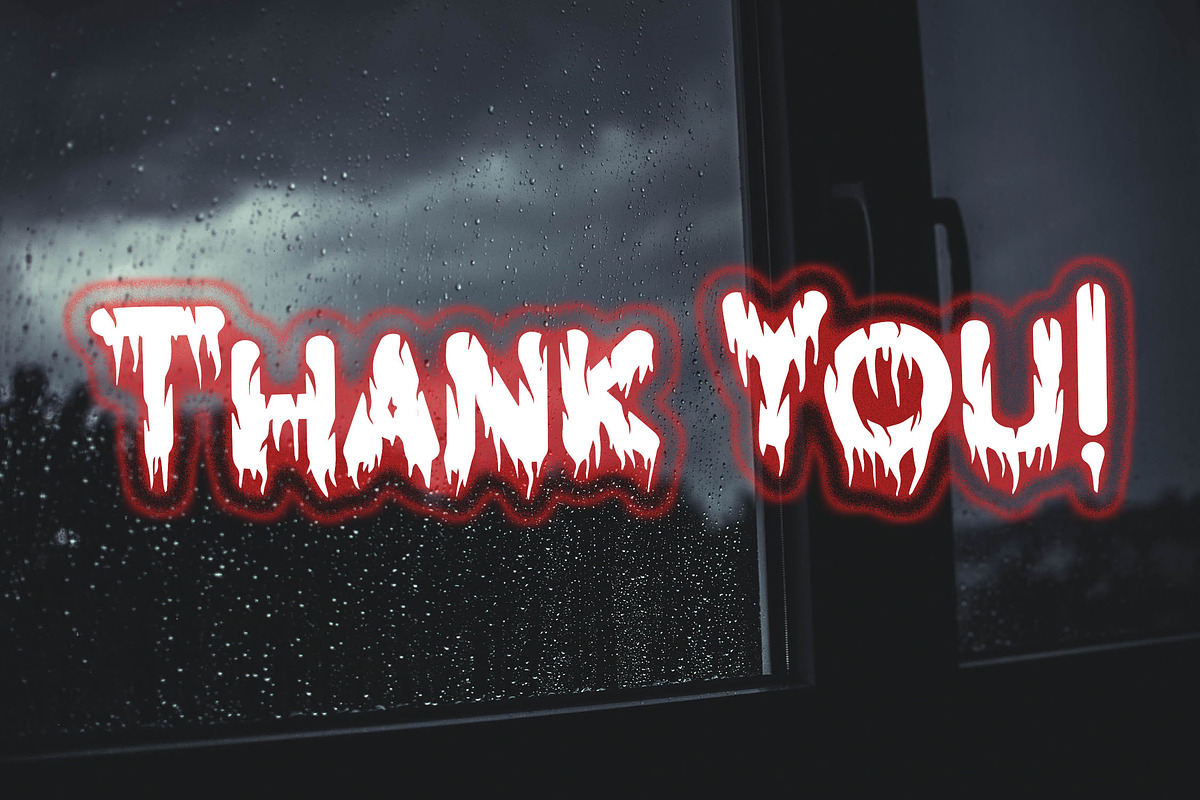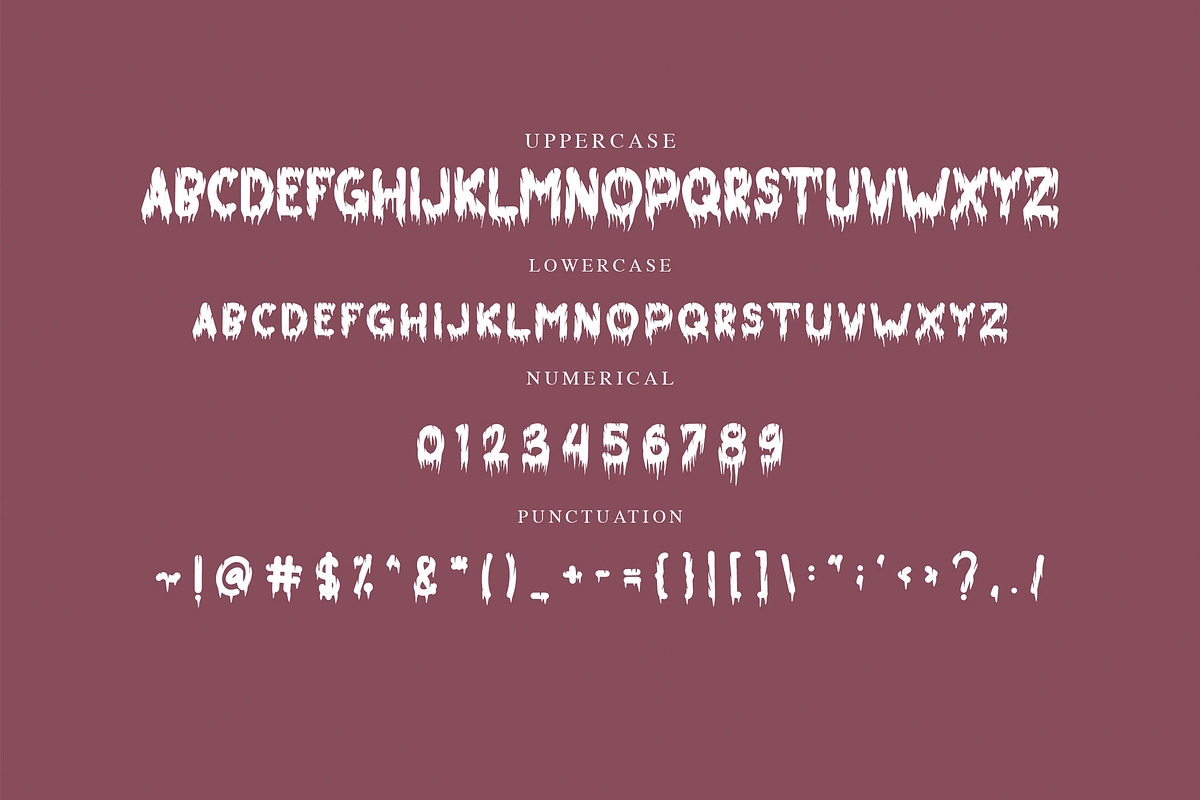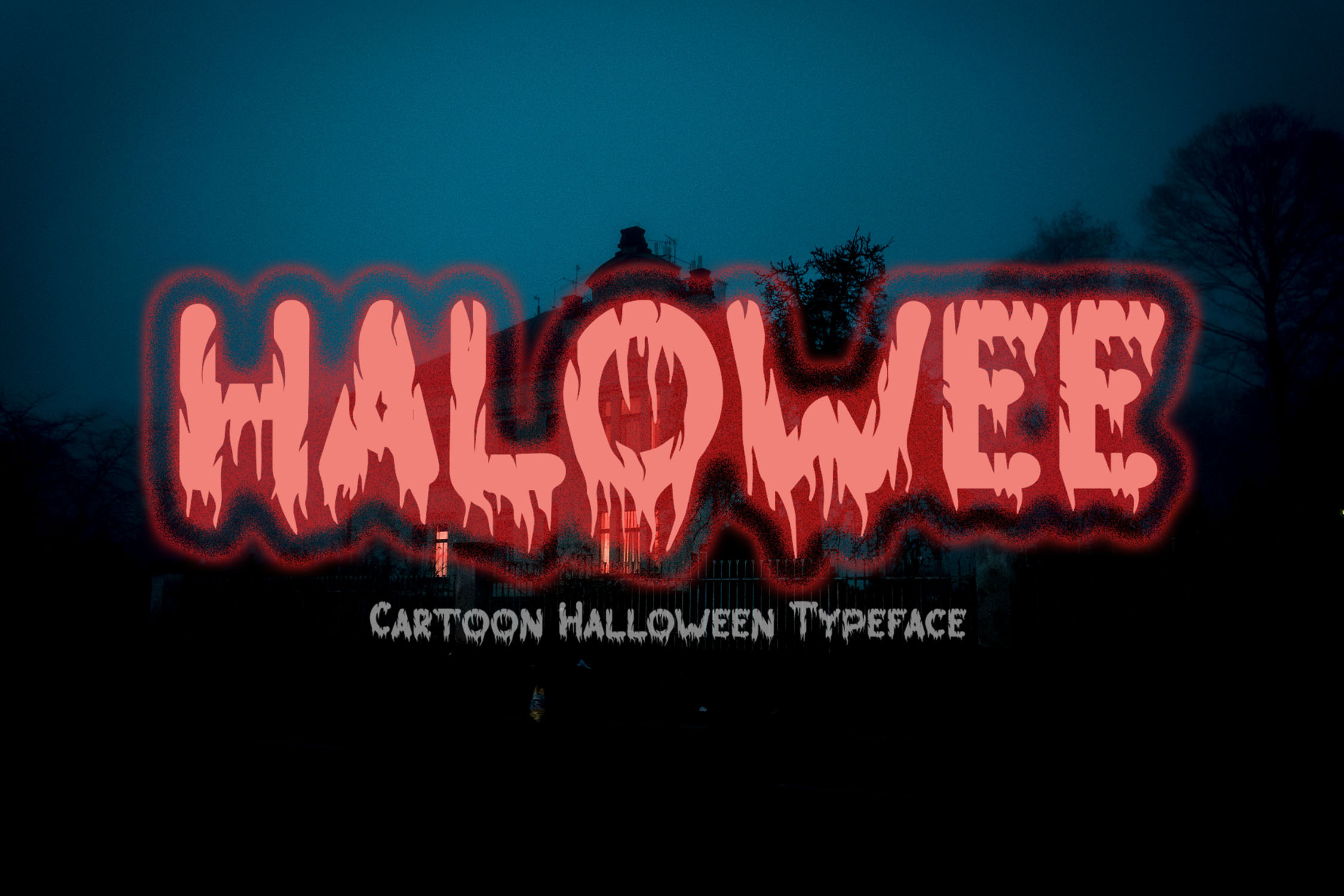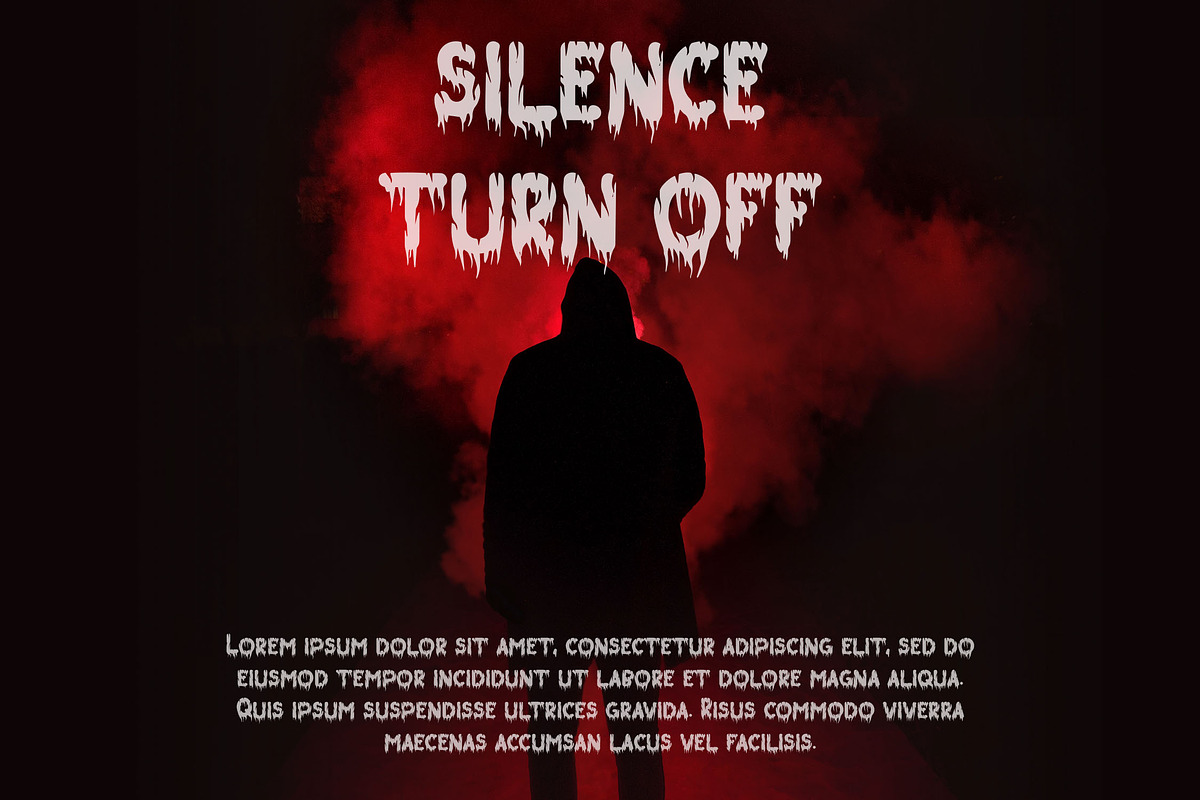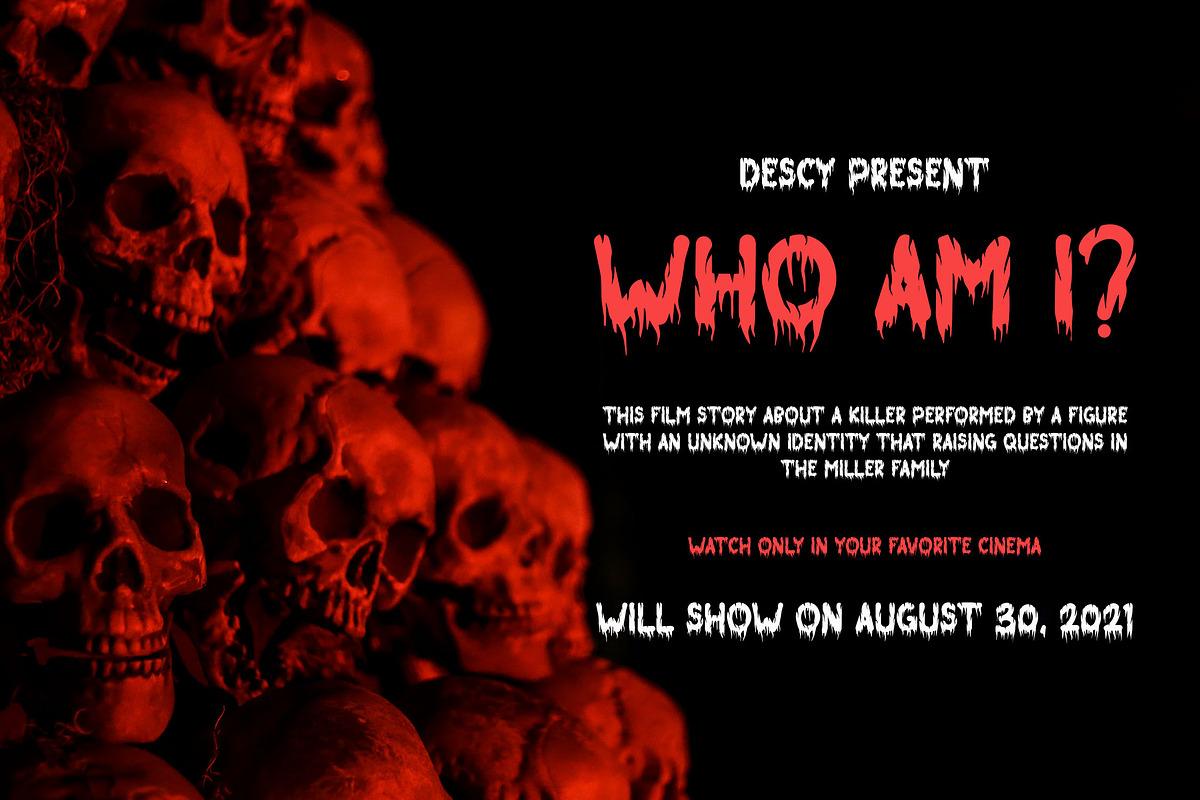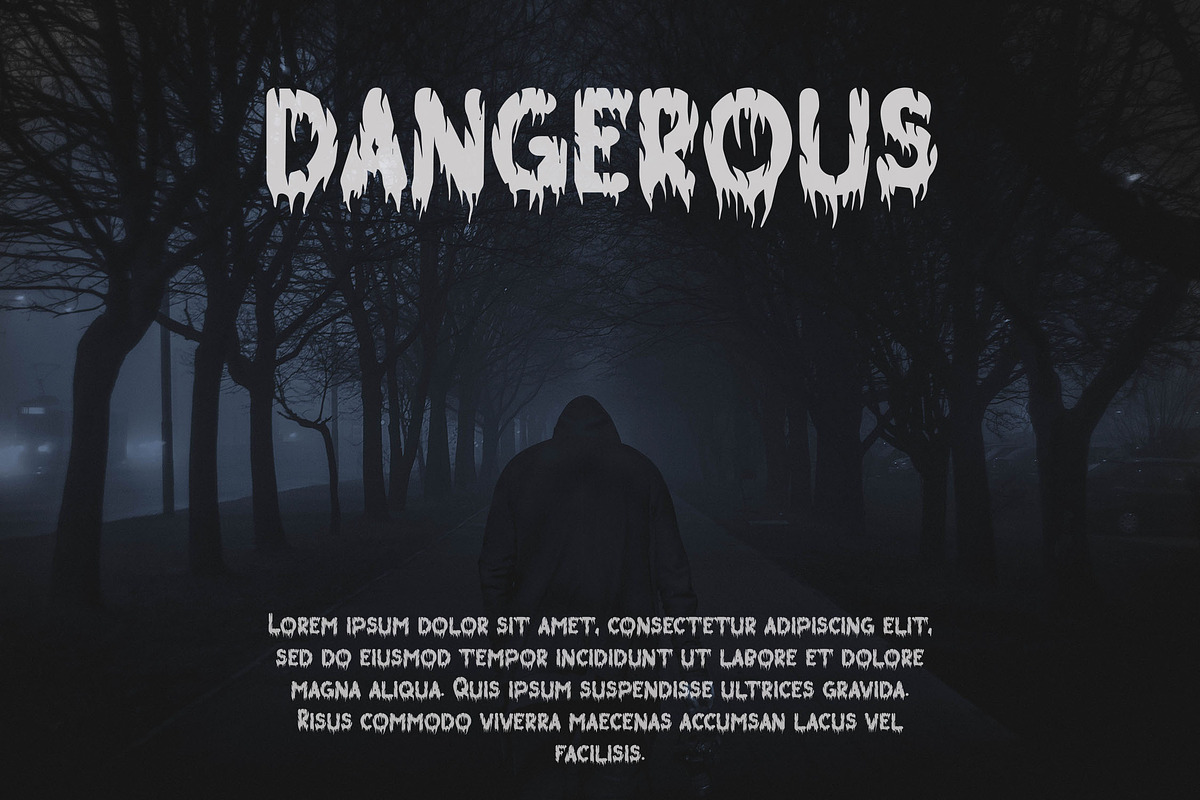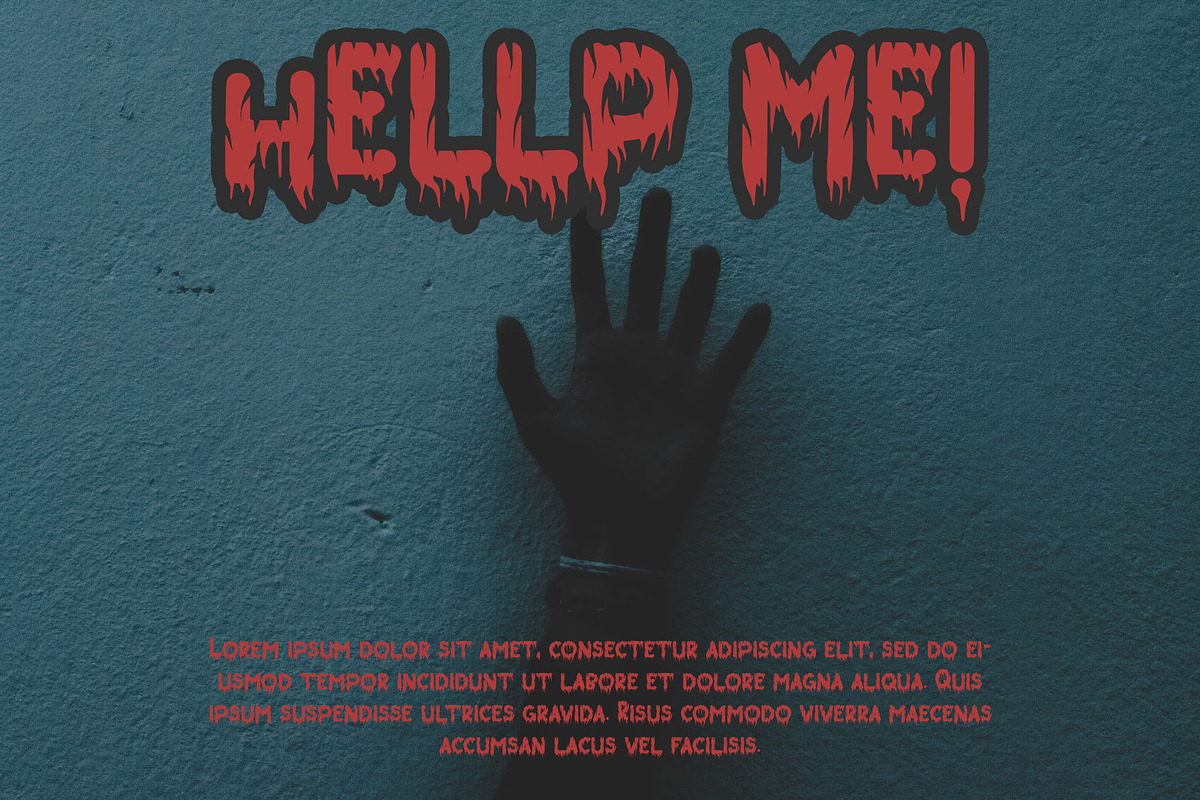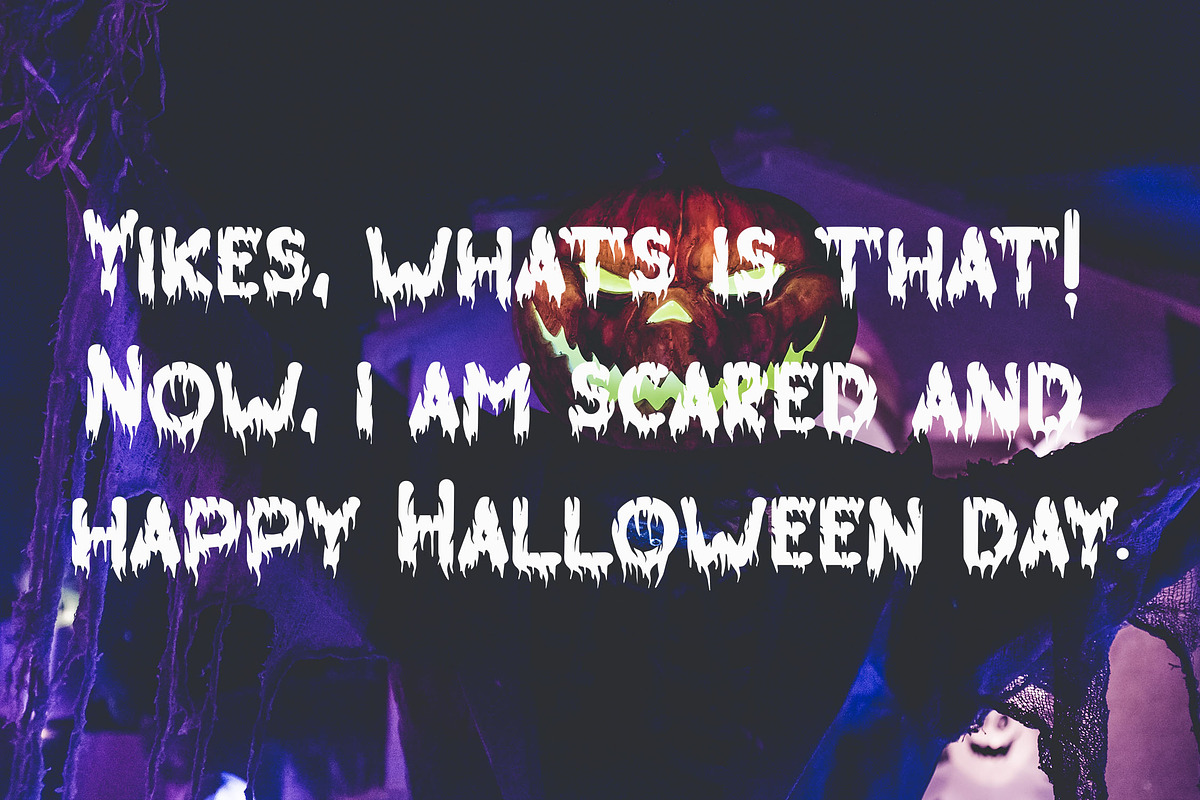
HALOWEE - Halloween Horror Font
HALOWEE is a horror Halloween themed font with a very unique melt-like character. The HALOWEE font is perfect for Halloween card and Halloween banner designs. This font is suitable for making previews and covers, logo designs, shirt designs, and other graphic needs.